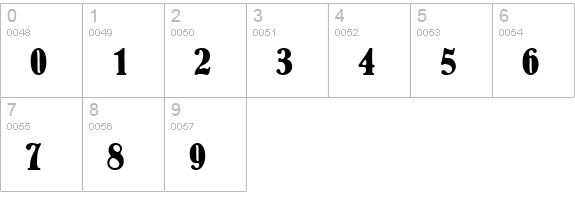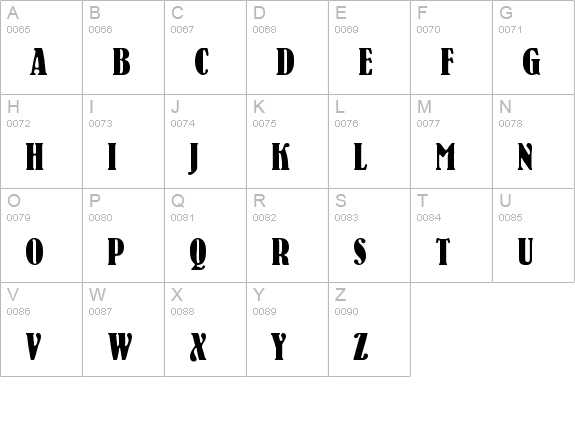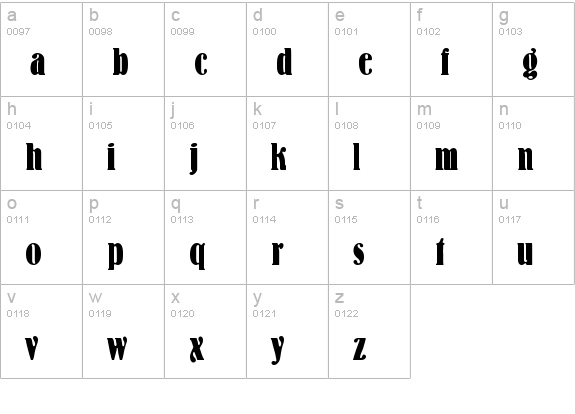
BernhardAntDBolCon Font Details
Introducing BernhardAntDBolCon font, a timeless and sophisticated typeface that exudes elegance and authority. Its bold and confident letterforms make a strong statement while maintaining a sense of classic refinement. Ideal for headlines, titles, and branding projects, this font commands attention and leaves a lasting impression. What sets BernhardAntDBolCon font apart is not just its striking design, but also the fact that it is available for free download at FontsMarket.com. Yes, you read that right - you can elevate your designs with this premium font without having to spend a penny. Don't miss out on the opportunity to add BernhardAntDBolCon to your font collection and take your projects to the next level.